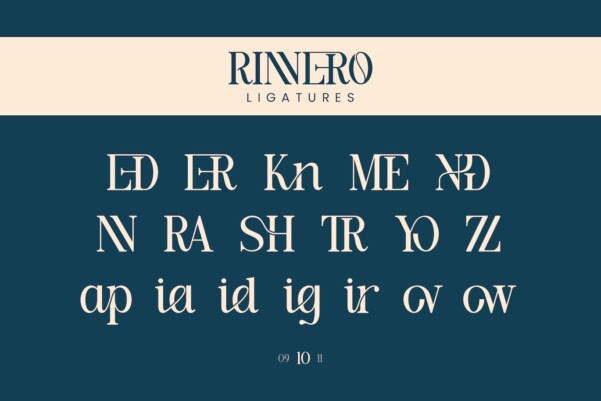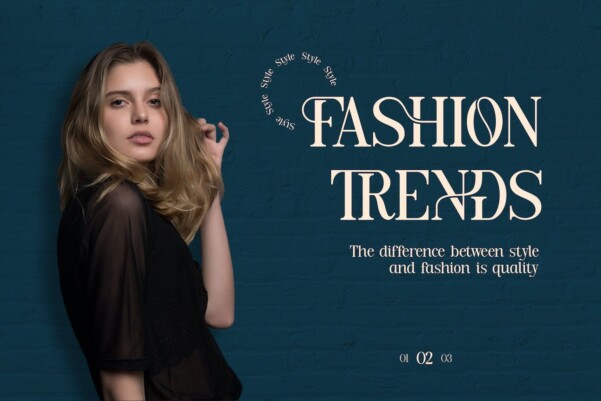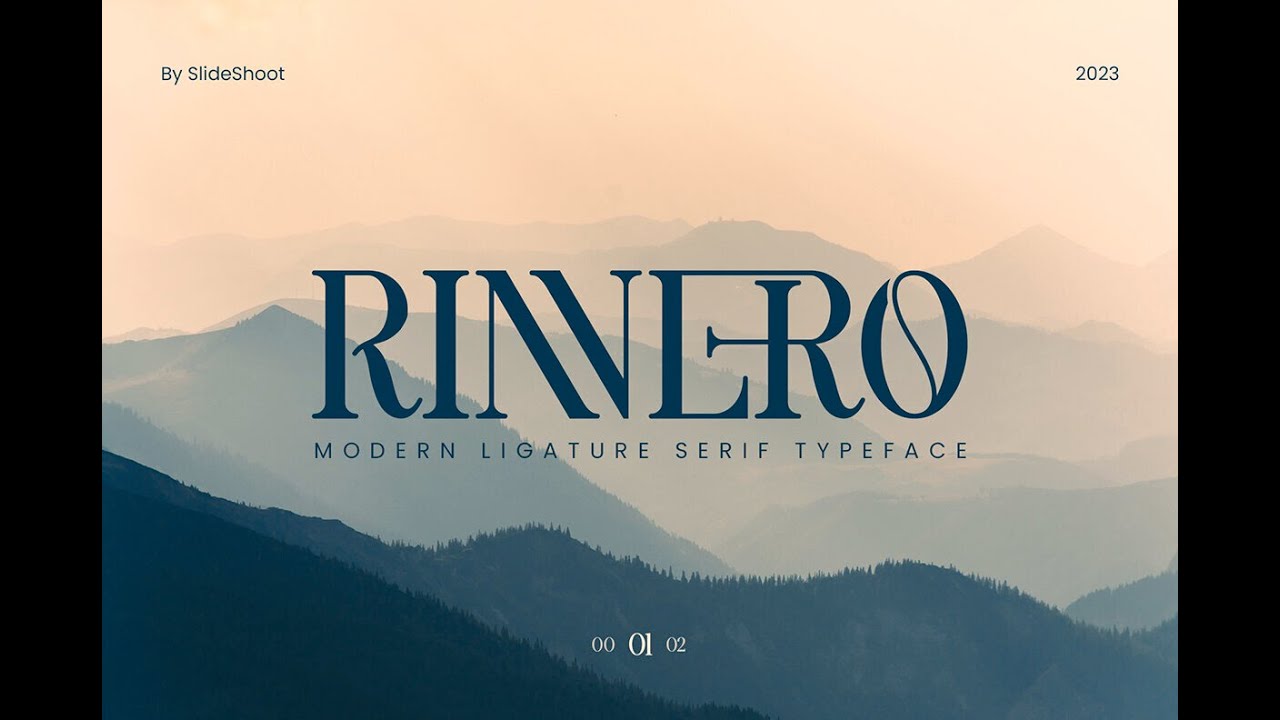
Rinnero Font Free Font Download and install free rinnero font. this font is from serif category and exclusively available at dafont free. Download rinnero font for windows and mac. rinnero font was designed by slideshoot and has been downloaded 4,427 times. Download now. rinnero font serif is a balanced, smooth, elegant and stylish serif font. he has a beautiful character. it fits perfectly with invitation cards. By installing or using this font. you are agree to the product usage agreement: this demo font just for personal use only.
Rinnero Font Dafont Free Download now. rinnero font serif is a balanced, smooth, elegant and stylish serif font. he has a beautiful character. it fits perfectly with invitation cards. By installing or using this font. you are agree to the product usage agreement: this demo font just for personal use only. Download rinnero font for pc mac for free, take a test drive and see the entire character set. moreover, you can embed it to your website with @font face support. Rinnero serif is a subtle serif font that exudes sophistication and elegance. its stylish alternations and ligatures make this font the perfect partner for any project. Rinnero, a free modern serif by slideshoot, carries a fashion editorial mood with tall contrast, fine hairlines, and rounded lowercase forms that keep it from feeling severe. Examples of this font can be found on the font site exfont, designed by slideshoot 2023, include the number of glyphs 272 characters. you can find other similar fonts, or fonts in the same family as this font right below.
Rinnero Font Free Font Download rinnero font for pc mac for free, take a test drive and see the entire character set. moreover, you can embed it to your website with @font face support. Rinnero serif is a subtle serif font that exudes sophistication and elegance. its stylish alternations and ligatures make this font the perfect partner for any project. Rinnero, a free modern serif by slideshoot, carries a fashion editorial mood with tall contrast, fine hairlines, and rounded lowercase forms that keep it from feeling severe. Examples of this font can be found on the font site exfont, designed by slideshoot 2023, include the number of glyphs 272 characters. you can find other similar fonts, or fonts in the same family as this font right below.
Rinnero Font Serif Classic What Font Is Rinnero, a free modern serif by slideshoot, carries a fashion editorial mood with tall contrast, fine hairlines, and rounded lowercase forms that keep it from feeling severe. Examples of this font can be found on the font site exfont, designed by slideshoot 2023, include the number of glyphs 272 characters. you can find other similar fonts, or fonts in the same family as this font right below.